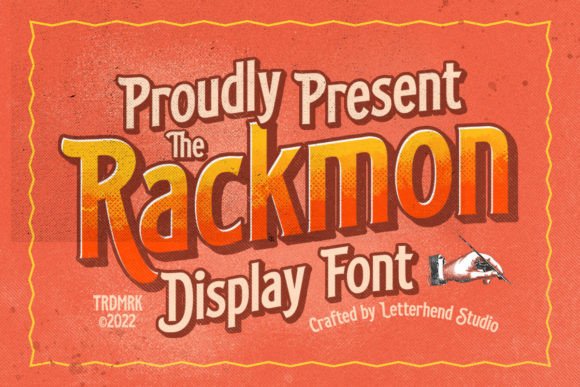
Dive into the realm of typography with Rackmon: The time-traveling font that brings vintage charm to your designs. This display font, conjured by the skilled hands at letterhend, is an ode to the bygone era, where nostalgia intertwines with modernity. Whether you're a seasoned graphic designer seeking a unique touch or a casual user yearning for a font that exudes character, Rackmon is your steadfast companion.
Step into a world where creativity knows no bounds. Rackmon's meticulously crafted glyphs dance gracefully across the screen, carrying your message with a touch of whimsy and elegance. Let your imagination soar as you explore the vast array of possibilities that this font unlocks: from eye-catching posters and captivating logos to enchanting invitations and heartfelt greeting cards. The versatility of Rackmon is truly astonishing, making it an indispensable tool for any design enthusiast.
With Rackmon at your fingertips, crafting designs that resonate with your audience becomes effortless. Its vintage charm adds an instant touch of sophistication, while its versatility allows it to seamlessly adapt to a multitude of design styles. Unleash your creativity and let Rackmon elevate your designs to new heights.
Don't settle for ordinary fonts that blend into the background. Embrace the extraordinary with Rackmon, a font that commands attention and leaves a lasting impression. Its nostalgic allure evokes emotions and creates a connection with your audience, making your designs truly unforgettable.
Join the ranks of design visionaries who have discovered the magic of Rackmon. Experience the joy of creating designs that captivate and inspire. Let Rackmon be your trusted guide as you venture into the world of vintage typography. Embrace the past, embrace the future, and embrace Rackmon, the font that embodies the essence of timeless design.